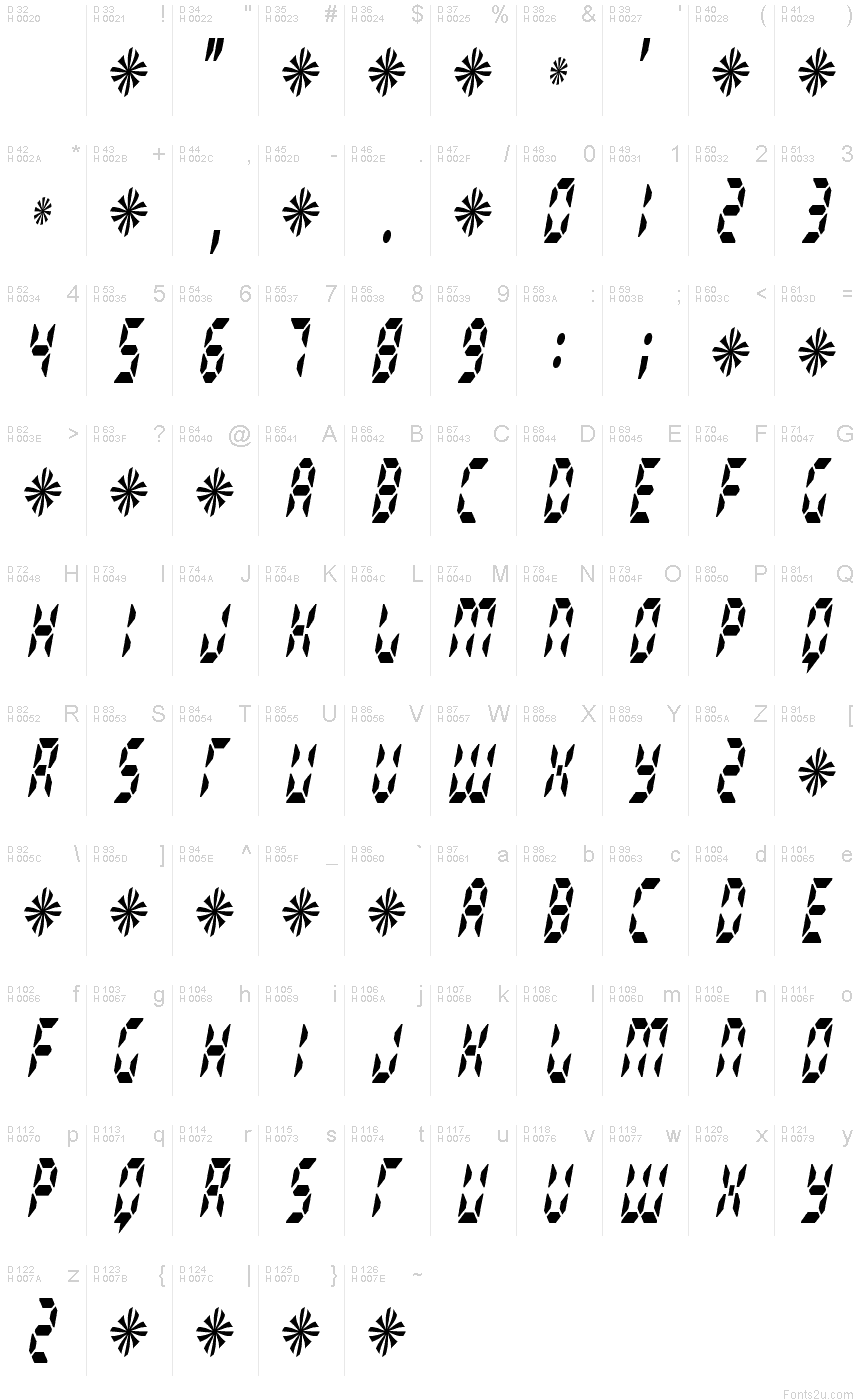
Radioland Slim
Radioland Slim by Jakob Fischer is a free digital display font with the clipped, segmented rhythm of old LED clocks and calculator readouts. The letters lean on sharp diagonal cuts and separated strokes, so the whole design feels spare, electronic, and a little retro-futurist rather than merely geometric.
It fits naturally into arcade-themed posters, synthwave cover lines, sci-fi title cards, tech event graphics, and compact logo work where a free font with an unmistakably numeric mood helps set the tone fast. Because the forms are broken into familiar display segments, it also works well for short labels, scoreboards, interface-inspired headers, and packaging that wants a crisp machine-era accent.